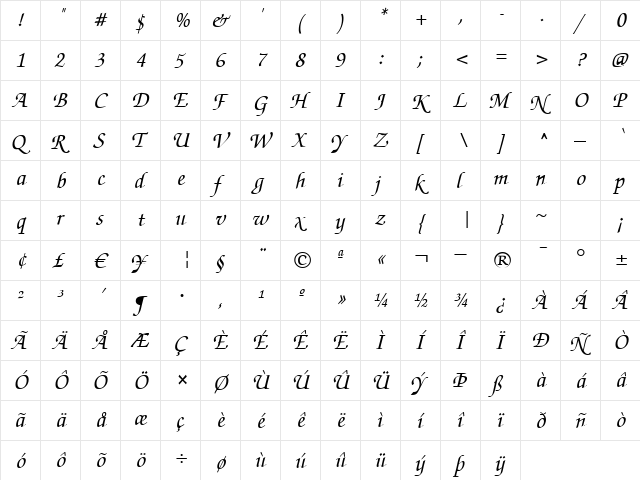
FlorenceScript Normal
Design Context for FlorenceScript Typeface
FlorenceScript flows with the natural rhythm of handwritten lettering, making it ideal for designs that call for warmth and personal expression.
Font Pairing: Combine FlorenceScript with a simple geometric sans for maximum contrast — the tension between flowing curves and clean structure is a classic typographic pairing.
Pro Tip: Pair FlorenceScript with a clean sans-serif for supporting text. The contrast between fluid script and geometric structure creates an elegant typographic hierarchy.